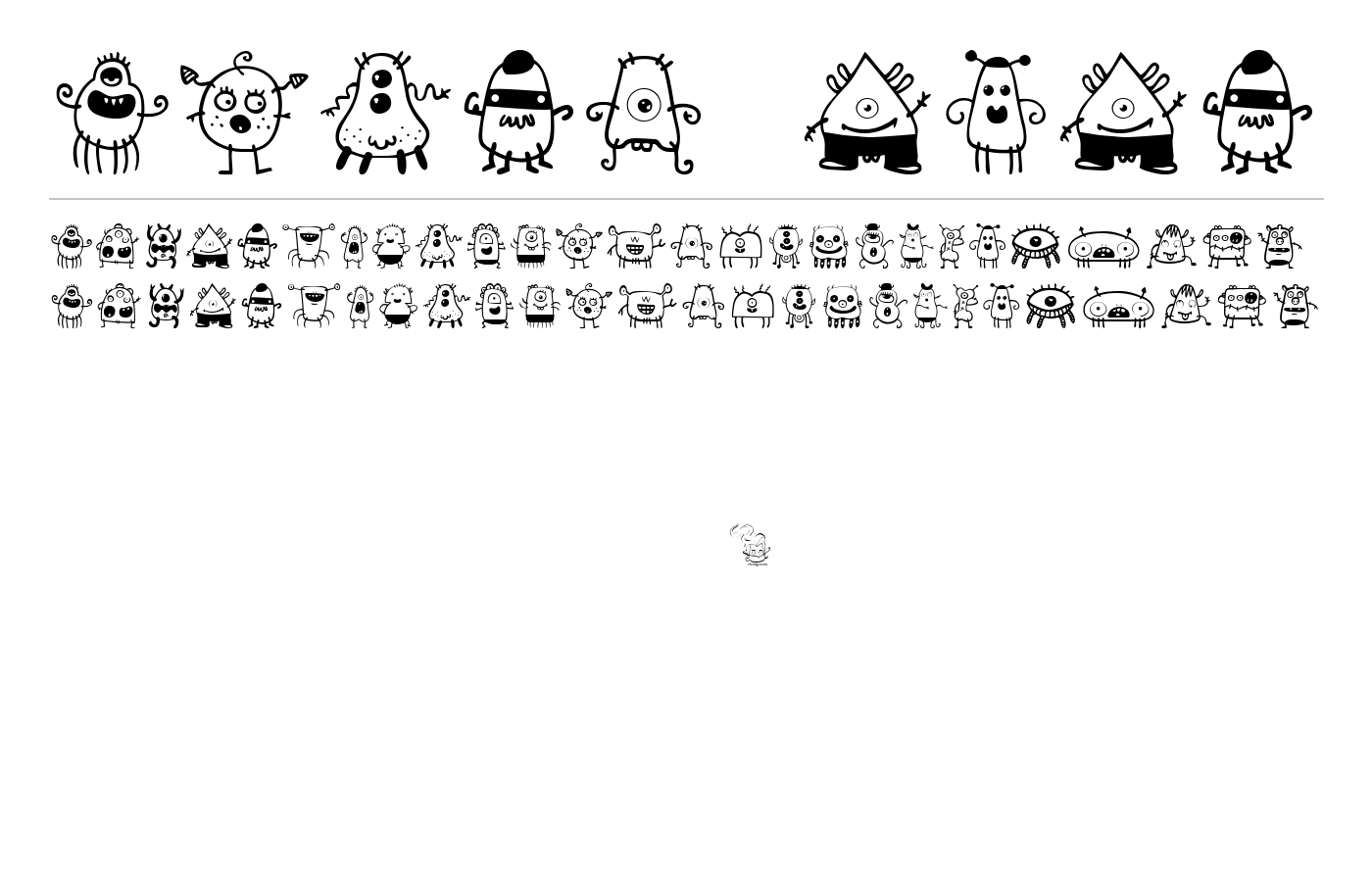
Alien Dude Font is a playful and quirky dingbat typeface featuring charming, hand-drawn alien characters with varying shapes and expressive details. Its whimsical style makes it ideal for fun, creative projects such as children's designs, posters, or playful branding where a lighthearted and imaginative mood is desired. This font brings personality and a unique, friendly vibe to any design needing a touch of humor and originality.